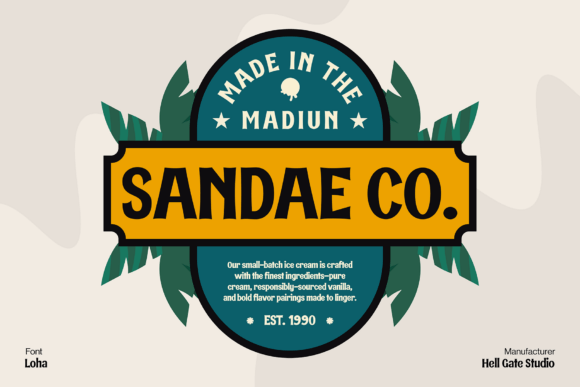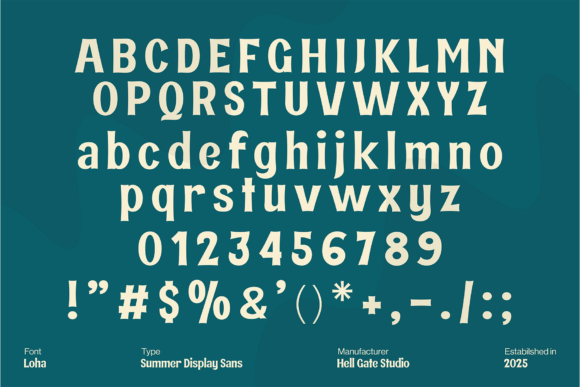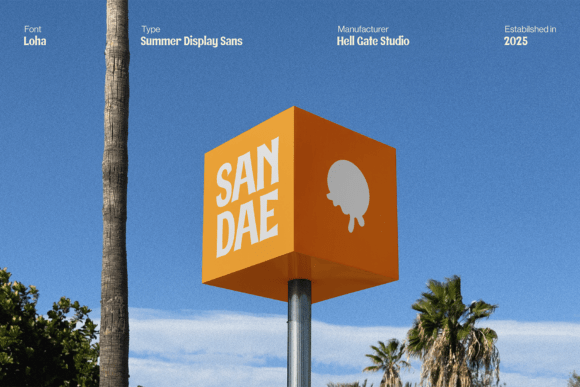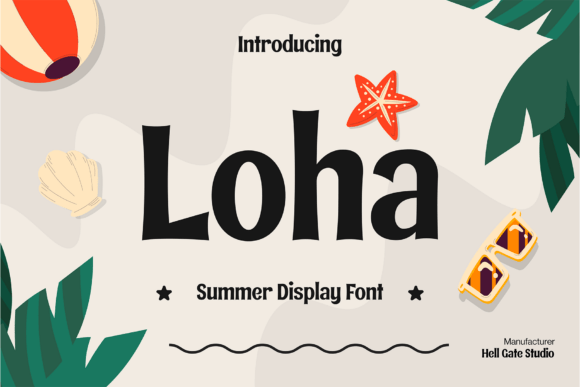
Introduction to Loha Font
Loha typeface is your go-to Summer Display Font infused with a cheerful and chilled-out vibe.
Specifically designed for refreshing summer themes, Loha’s 1 variant is as vibrant and dynamic as a summer day Effortless to modify in terms of text and color – Loha puts the power of high-end design at your fingertips.
Loha Font offers exceptional quality and versatility, making it a valuable addition to your design toolkit. Whether you’re creating for personal projects or commercial use, Loha Font delivers professional results.